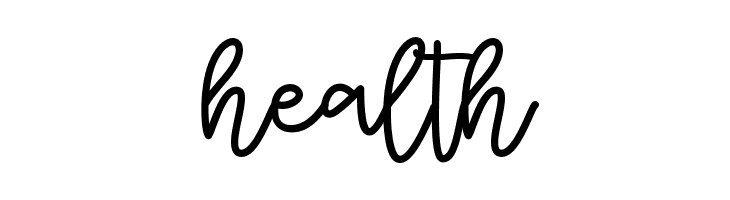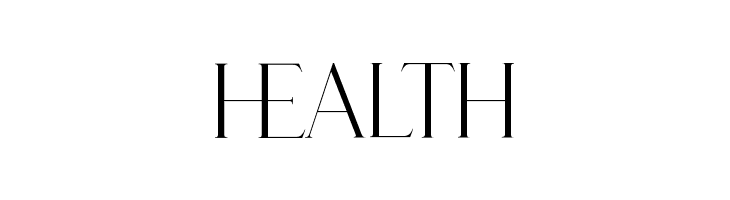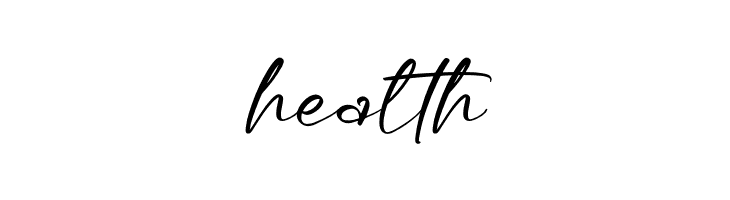
An elegant, flowing script font with decorative swashes and balanced strokes.
A flowing, cursive script font with elegant, interconnected strokes.
An elegant script font with intricate loops and swashes, perfect for artistic projects.
A slanted, elegant script font with flowing cursive letters and decorative flourishes.
A playful, handwritten font with smooth curves and a whimsical style.
An elegant serif typeface with high contrast and refined, elongated strokes.
An elegant script font with flowing, ornate characters and graceful flourishes.
A graceful and ornate script font with elegant curves and loops.
Elegant handwritten script font.